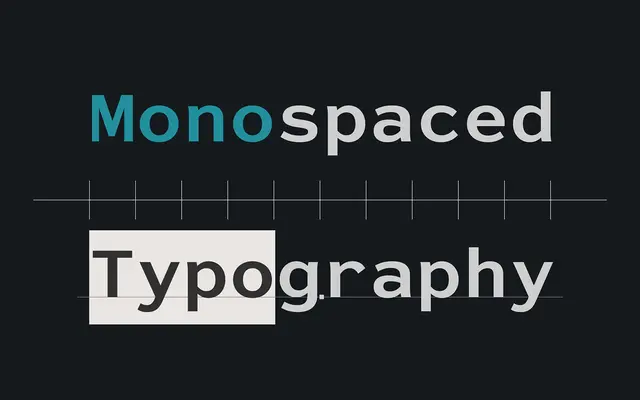
Best Choice specimen from Dharma Type
A monospaced family from Dharma Type built for coding and programming, with character disambiguation and slanted-roman italics prioritised over cursive forms.
Designed around the three qualities Dharma Type identify as central to a good coding font: distinguishability, identifiability and readability. Characters frequently confused in technical contexts, such as zero and uppercase O or one and uppercase I, have been drawn to minimise ambiguity. The italic styles use a slanted roman rather than cursive forms, and are cut slightly lighter than the uprights to reinforce the distinction between the two.
Explicitly designed as a monospaced typeface for programming and coding environments, with deliberate disambiguation of commonly confused characters and slanted-roman italics rather than cursive forms.